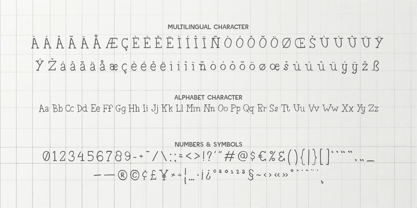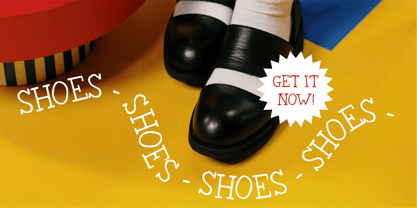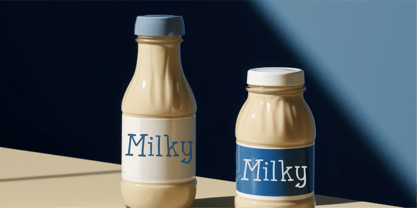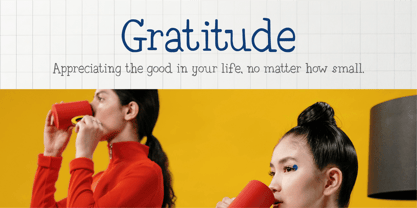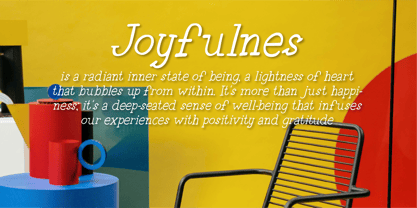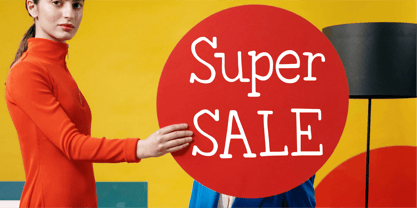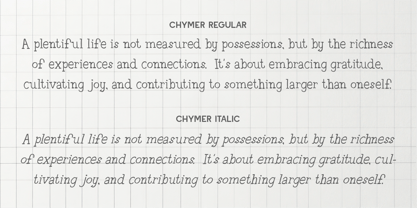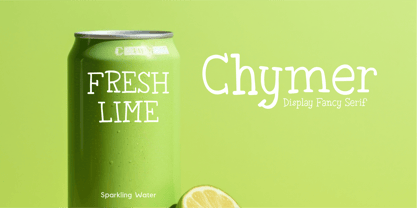
CF Chymer
by Indotype
The CF Chymer Font Family was designed by Dede Kurniawan and published by Indotype. CF Chymer contains 2 styles and family package options.
Chymer is a display fancy serif font that blends playful curves with a bold presence. Its distinctive letterforms and slightly exaggerated serifs give it a whimsical yet sophisticated charm, making it perfect for eye-catching headlines, branding, and creative projects. Whether used in editorial designs, fashion branding, or modern advertising, Chymer adds a unique personality that is both stylish and memorable. With its fun yet refined aesthetic, this font brings a fresh twist to classic serif typography.
- Standard Character A-Z, a-z, 0-9, Punctuation & symbols
- Regular and Italic